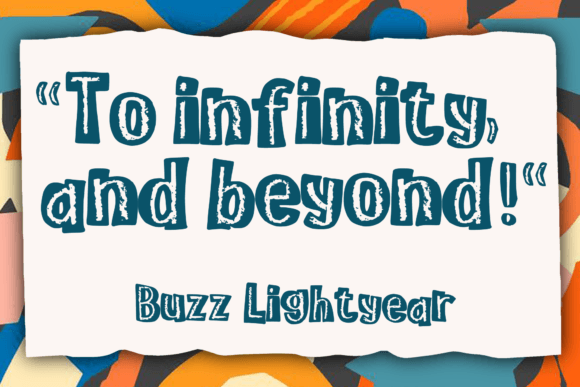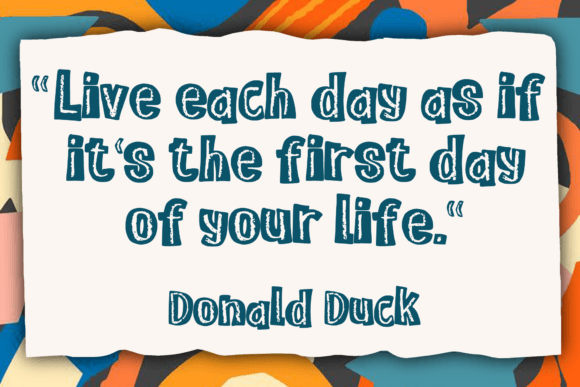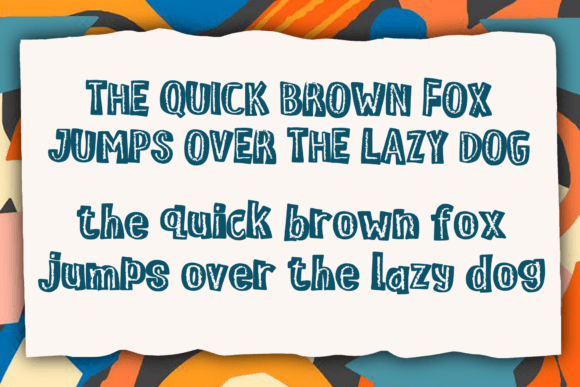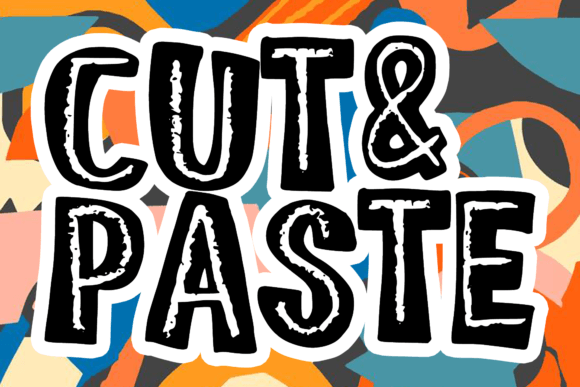
Introducing Cut and Paste Font: The Ultimate Artsy Display Font
Are you a designer, crafter, or DIY enthusiast looking for a font that can add a touch of whimsy and fun to your projects? Look no further than Cut and Paste Font! This artsy display font is incredibly versatile and can be used for a wide range of creative endeavors, from t-shirts and kids’ book designs to greeting cards, stickers, and posters.
The Characteristics of Cut and Paste Font
Cut and Paste Font is a unique and eye-catching font that is sure to capture the attention of your audience. Its distinctive style is reminiscent of hand-cut and pasted letters, giving it a charming and nostalgic feel. The font features bold lines, playful curves, and a dash of imperfections, making it perfect for designs that require a personal touch.
What Makes Cut and Paste Font So Versatile?
One of the best things about Cut and Paste Font is its incredible versatility. The font can be used for a wide range of projects, including:
- T-shirts and apparel: Add a touch of whimsy to your t-shirt designs with Cut and Paste Font. Its bold and playful style is sure to make your designs stand out.
- Kids’ book designs: Create engaging and interactive kids’ books with Cut and Paste Font. Its fun and playful style is perfect for storybooks, activity books, and more.
- Greeting cards and invitations: Add a personal touch to your greeting cards and invitations with Cut and Paste Font. Its charming and nostalgic style is sure to make your cards and invites special.
- Stickers and posters: Create eye-catching stickers and posters with Cut and Paste Font. Its bold and playful style is sure to grab the attention of your audience.
Why Designers and Crafters Love Cut and Paste Font
Designers and crafters love Cut and Paste Font for many reasons. Here are just a few:
- High-quality design: The font is designed with high-quality and precision, ensuring that it looks great in any design.
- Customizable: Cut and Paste Font can be customized to fit your design needs. You can adjust the size, color, and style to create a unique look.
- Unique style: The font’s unique style sets it apart from other fonts, making it perfect for designers and crafters who want to create something special.
Tips for Using Cut and Paste Font
Here are a few tips for using Cut and Paste Font in your designs:
- Experiment with different sizes: Cut and Paste Font looks great in a variety of sizes. Experiment with different sizes to find the one that works best for your design.
- Pair with other fonts: Cut and Paste Font can be paired with other fonts to create a unique and interesting design. Try pairing it with a serif font for a contrasting look.
- Add a personal touch: Cut and Paste Font is perfect for designs that require a personal touch. Add a hand-drawn element or a photo to make your design more special.